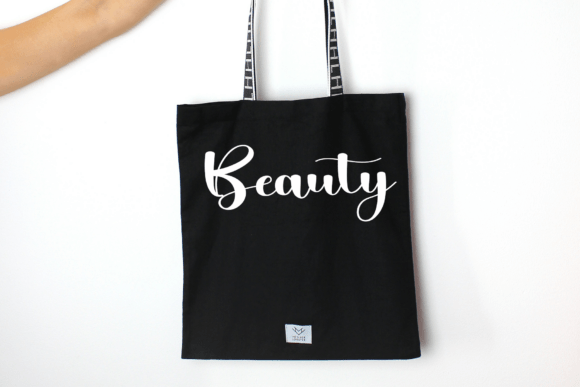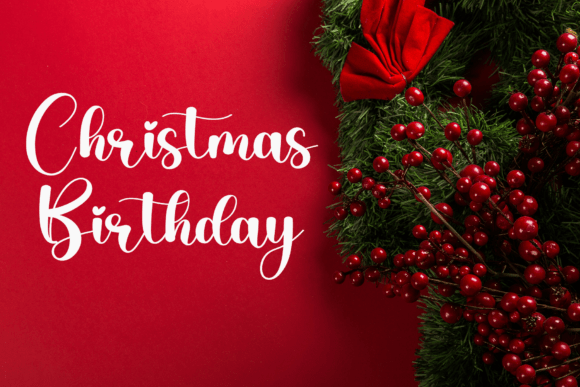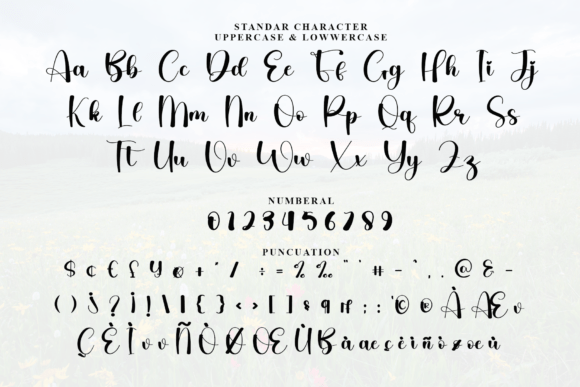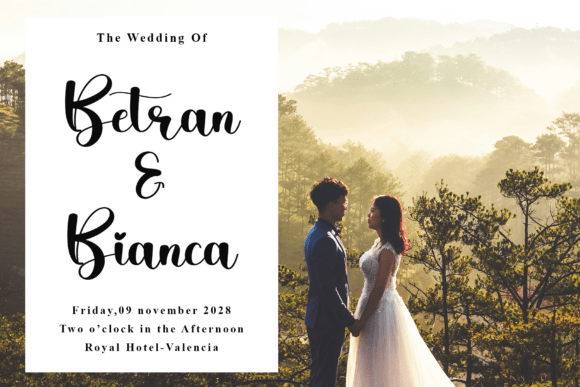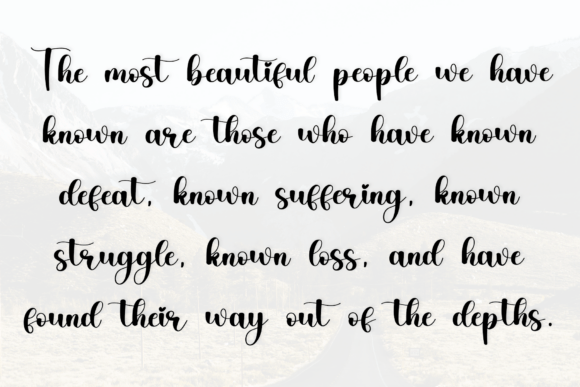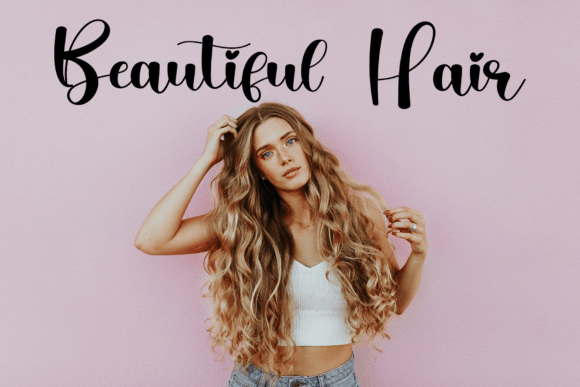
The Beautiful Font: Elevate Your Designs with a Delicate Handwritten Touch
In the world of typography, a beautiful font can make all the difference in creating a lasting impression. For designers and crafters looking to add a touch of elegance and uniqueness to their work, the Beautiful font is an excellent choice. This delicate handwritten font is carefully crafted to bring a cool and distinctive design to various projects, from letters and invitations to food products and titles.
What Makes the Beautiful Font Stand Out?
The Beautiful font boasts a range of characteristics that set it apart from other fonts. Its delicate and handwritten nature gives it a personal and intimate feel, perfect for designs that require a touch of warmth and personality. The font’s unique design elements, such as its subtle flair and cursive connections, add to its charm and make it a versatile choice for various applications.
Uses for the Beautiful Font
The Beautiful font is incredibly versatile, making it suitable for a wide range of design projects. Some of the ways you can use this font include:
- Writing Letters and Invitations: Add a touch of elegance to your correspondence with the Beautiful font. Its delicate nature makes it perfect for writing love letters, wedding invitations, and other personal correspondence.
- Food Product Labeling: Give your food products a unique and eye-catching label with the Beautiful font. Its cursive design elements make it ideal for labeling baked goods, specialty foods, and other gourmet products.
- Titles and Headings: Use the Beautiful font to create stunning titles and headings for your designs. Its elegant and refined nature makes it perfect for use in magazines, blogs, and other publications.
- Stationery and Gift Tags: Add a personal touch to your stationery and gift tags with the Beautiful font. Its delicate design elements make it perfect for creating custom stationery, gift tags, and other paper crafts.
Tips for Using the Beautiful Font
To get the most out of the Beautiful font, here are a few tips to keep in mind:
- Pair it with Other Fonts: Combine the Beautiful font with other fonts to create a unique and visually appealing design. Try pairing it with a bold sans-serif font for a striking contrast.
- Experiment with Colors: The Beautiful font looks stunning in a range of colors, from soft pastels to rich jewel tones. Experiment with different colors to find the perfect combination for your design.
- Use it Sparingly: While the Beautiful font is elegant and refined, it can be overwhelming if used excessively. Use it sparingly to create a sense of balance and harmony in your design.
Why Designers and Crafters Love the Beautiful Font
The Beautiful font has become a favorite among designers and crafters due to its unique and versatile nature. Here are a few reasons why:
- Unique and Handwritten: The Beautiful font’s handwritten nature gives it a personal and distinctive touch that sets it apart from other fonts.
- Elegant and Refined: The font’s delicate design elements make it perfect for creating elegant and refined designs that exude sophistication and style.
- Versatile: The Beautiful font is incredibly versatile, making it suitable for a wide range of design projects, from letters and invitations to food products and titles.
In conclusion, the Beautiful font is a delicate handwritten font that is carefully crafted for a cool and unique design. Its elegant and refined nature makes it perfect for a wide range of design projects, from letters and invitations to food products and titles. With its unique design elements and versatile nature, the Beautiful font is sure to become a favorite among designers and crafters.